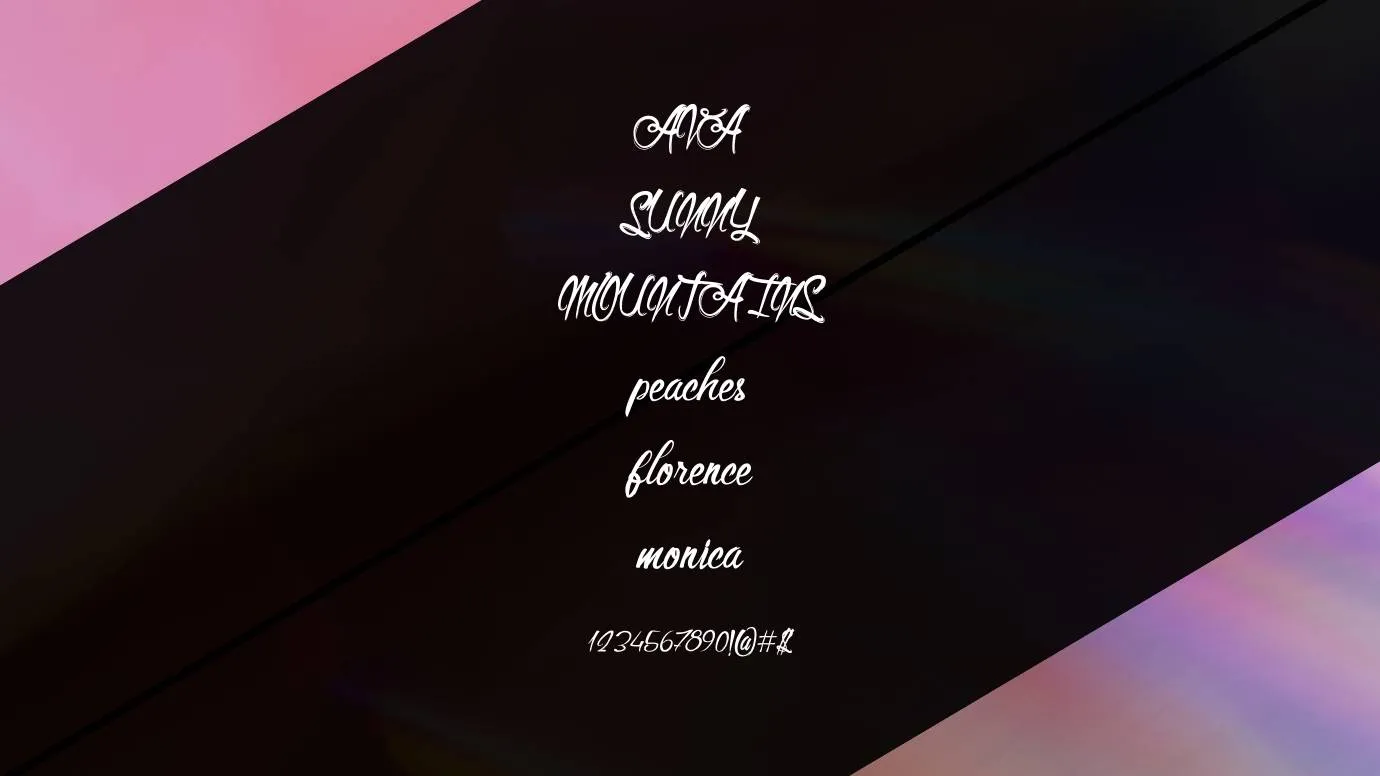
In this post, I shall present to you an attractive and unique typeface. Duvetica Font is a lovely and stunning typeface. This typeface is a brush typeface that was designed by an American typeface foundry in 2017. The font was created to emulate the look of a hand-drawn brush script.
This typeface is available in two styles: Regular and Bold. Each style contains 697 characters including uppercase, lowercase, numbers, punctuation, and symbols. and supports multiple languages.
This typeface is a great choice for those looking for a brush script typeface. The font has a unique style that will add personality to your projects. Duvetica Font generator tool is currently unavailable. This typeface is similar to the better together font that helps you in creating the unique text.
You can use this typeface with the blow brush font to create elegant and unique text styles. You can use this typeface in the making of posters, invitation cards, banners, fashion designing, fabric designs, shop names, and many more.
Designer of Duvetica Font
This stylish and unique typeface is designed by an American typeface foundry Polythene Designs in 2017. This foundry designed some other typefaces.
This font style is designed with a unique and consistent style. This attractive style is a combination of different features, including capital and small letters, digits, punctuations, glyphs, symbols, special characters, and a lot of language support.
View of Duvetica Font
| Name | Duvetica Font |
| Style | Brush |
| Designer | Polythene Designs |
Is Duvetica Font easy to read?
Yes, Duvetica typeface is easy to read. The font has a clear and readable style.
Is Duvetica typeface fancy font?
No, Duvetica typeface is not a Fancy typeface. This font is a script and belongs to the brush subfamily.
Is Duvetica Font good for a magazine cover?
Yes, this typeface is good for magazine covers. It is also good for book titles, invitation cards, branding, and product packaging.